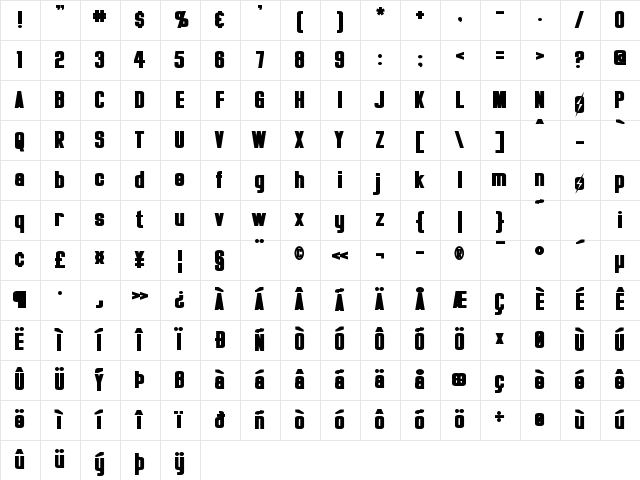
Overseer Bold Free Font
Overseer Bold
Foundry: Pixel Sagas
Designer: Neale Davidson
Design Context for Overseer
Overseer is a composed and adaptable typeface that performs quietly and consistently across a wide range of design contexts. Its bold stroke weight gives it real presence on the page.